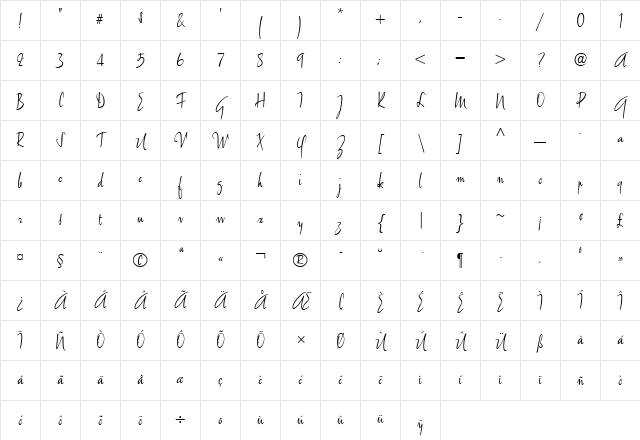
Amethyste Regular Free Font
Amethyste Regular
Design Context for Amethyste
Amethyste is a composed and adaptable typeface that performs quietly and consistently across a wide range of design contexts.